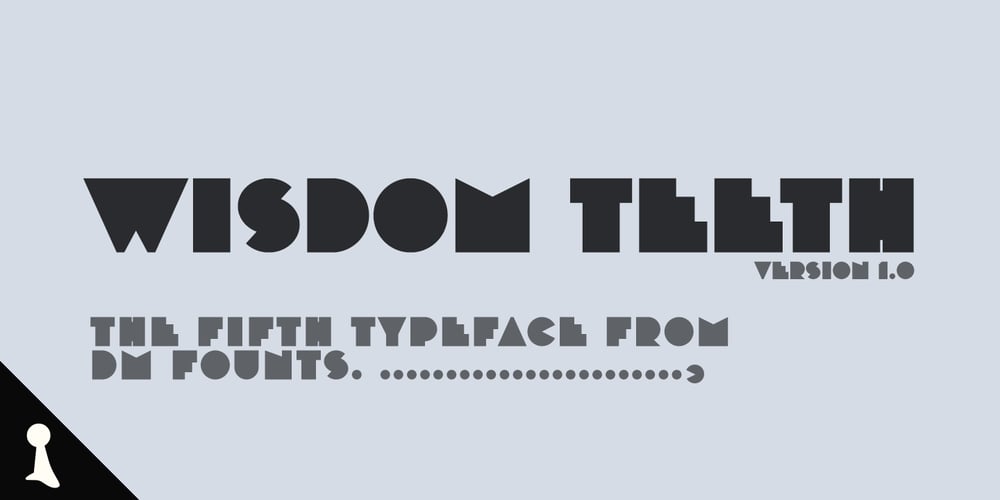
Wisdom Teeth Font Family was designed by Drew Maughan and published by DM Founts. Wisdom Teeth contains 3 styles and family package options. Wisdom Teeth is the fifth typeface released by DM Founts. It’s a modern and personal take on the original Baby Teeth font by Milton Glaser, and inspired by the lettering used for the Pac-Man series of games (and its clones).This typeface was around 25 years in the making, and was made in response to the large number of hideously bad clones of Baby Teeth circulating around the Internet.Version 1.0Included in Version 1.0 are a number of accent characters, and alternate characters for A and Y, along with the usual ASCII characters. For the time being this is an all caps typeface.Please let me know your thoughts and suggestions, and I may add some more characters in the near future.